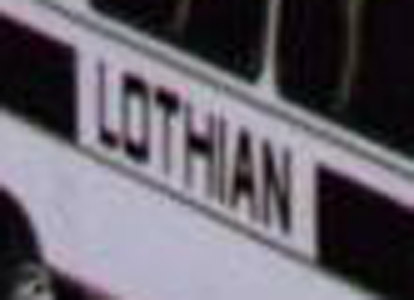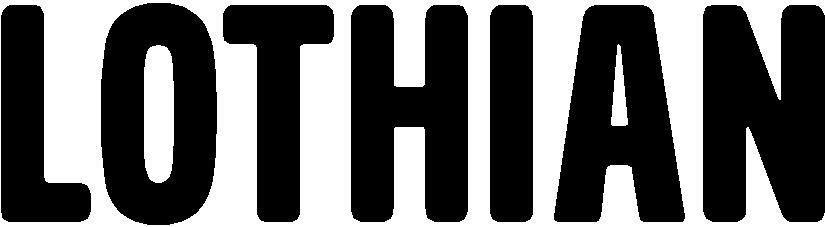
font ID please
Posted by Marcella Ross on 25 January 2007 at 11:00This is the only visual I have ………….. it’s really bad!!!!! 😕
But can anyone identify this? It looks familiar to me but I can’t seem to find it.
oh them pixels you mean!! :lol1: Is the company called Lothian Marcie?
its there???? 😕 well i can see it anyway is it a coach firm?
quote George Elsmore:its there???? 😕 well i can see it anyway is it a coach firm?
Yes it’s for an old bus.
Its a tough one Marcie, have you physically seen this or did they send a photo?…………..took by someone whizzing past on a motorbike :bike;
Whatever it is, it’s been severely condensed.
You can tell by the thin up and down strokes and the fat horizontal ones.
By looking at their site you can see that they now use what looks like Helvetica.
Maybe the old stuff is just really squished Helvetica.
Love….Jill -
John – I thought it looked like eurostile but it’s squarer and the ‘N’ is slightly different
Jill – The style is completely different now from the old buses.
This photo is from another website for enthusiasts 😮 One of these weird blokes is wanting the vinyls for his old bus he’s just painted 🙄
here’s the other website, perhaps you might find the pics easier to look at here.
quote Marcella:One of these weird blokes
I thought all us blokes were weird.
Boys and their toys eh? 😀
I could do if he’s very keen on getting it perfect, just thought I’d ask the experts here first 😀
I think Bank Gothic looks closer …………. I’ll let my customer have a look at that and he can perhaps compare it to another bus……….. rather than the poor jpeg